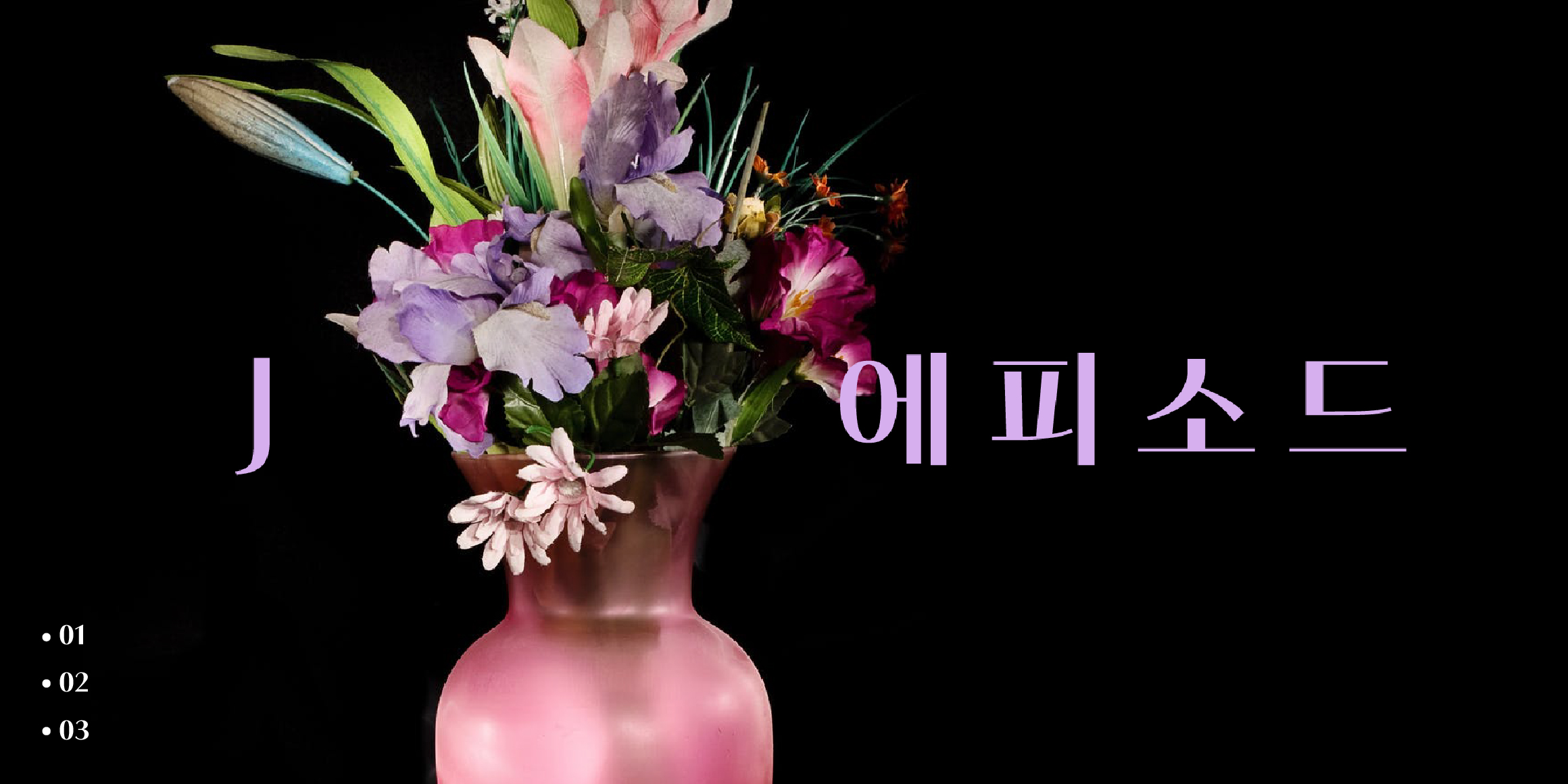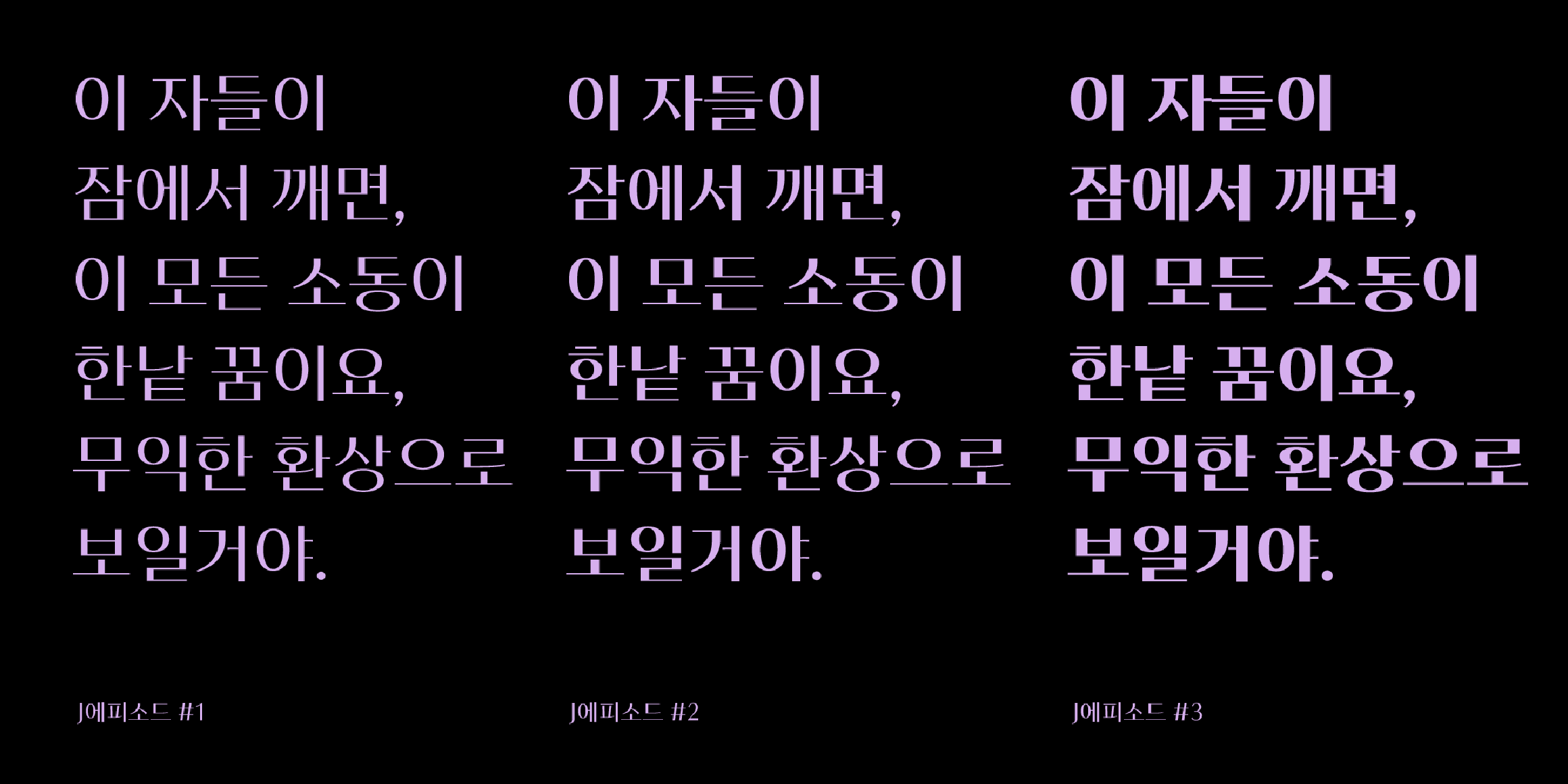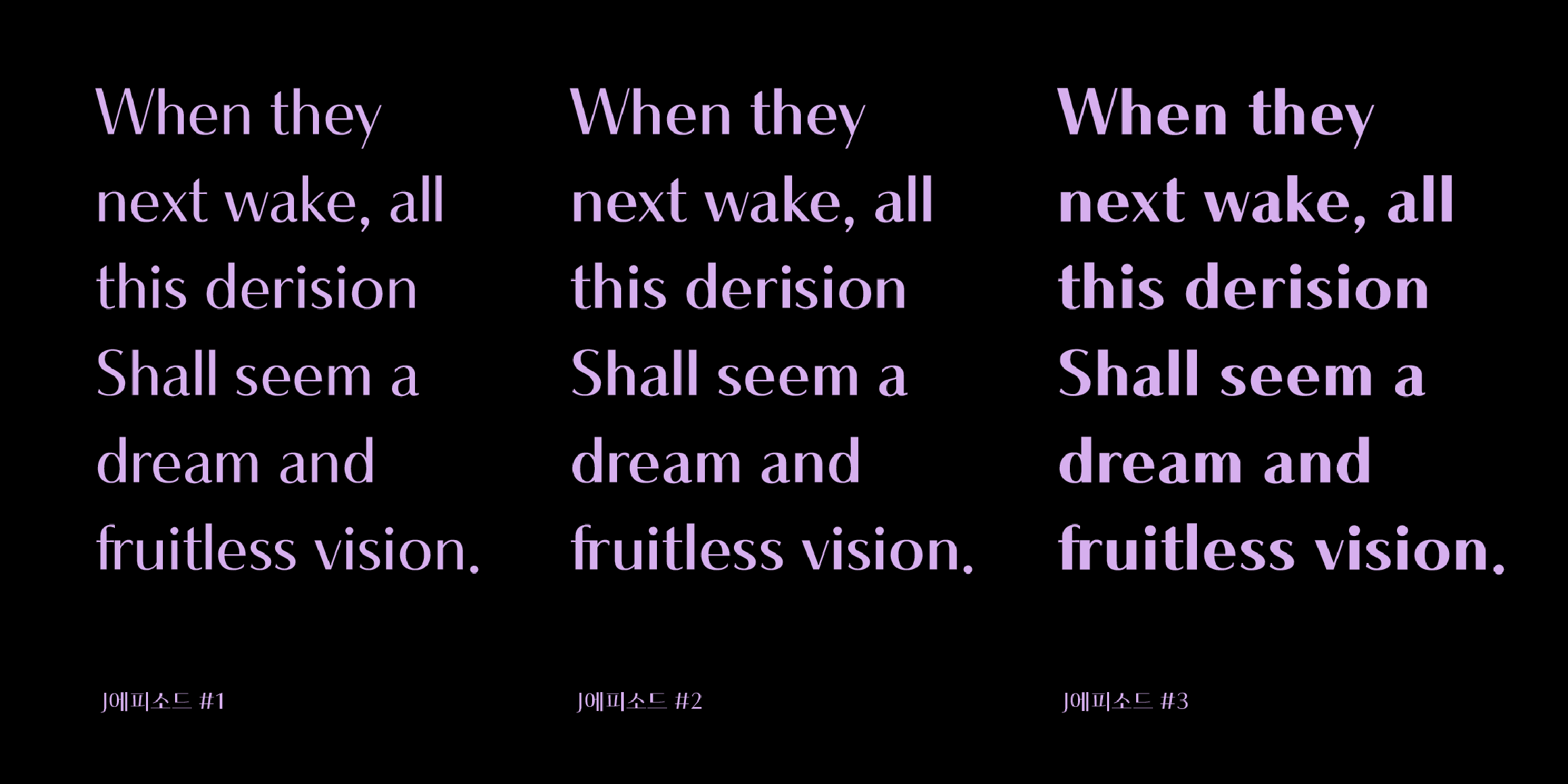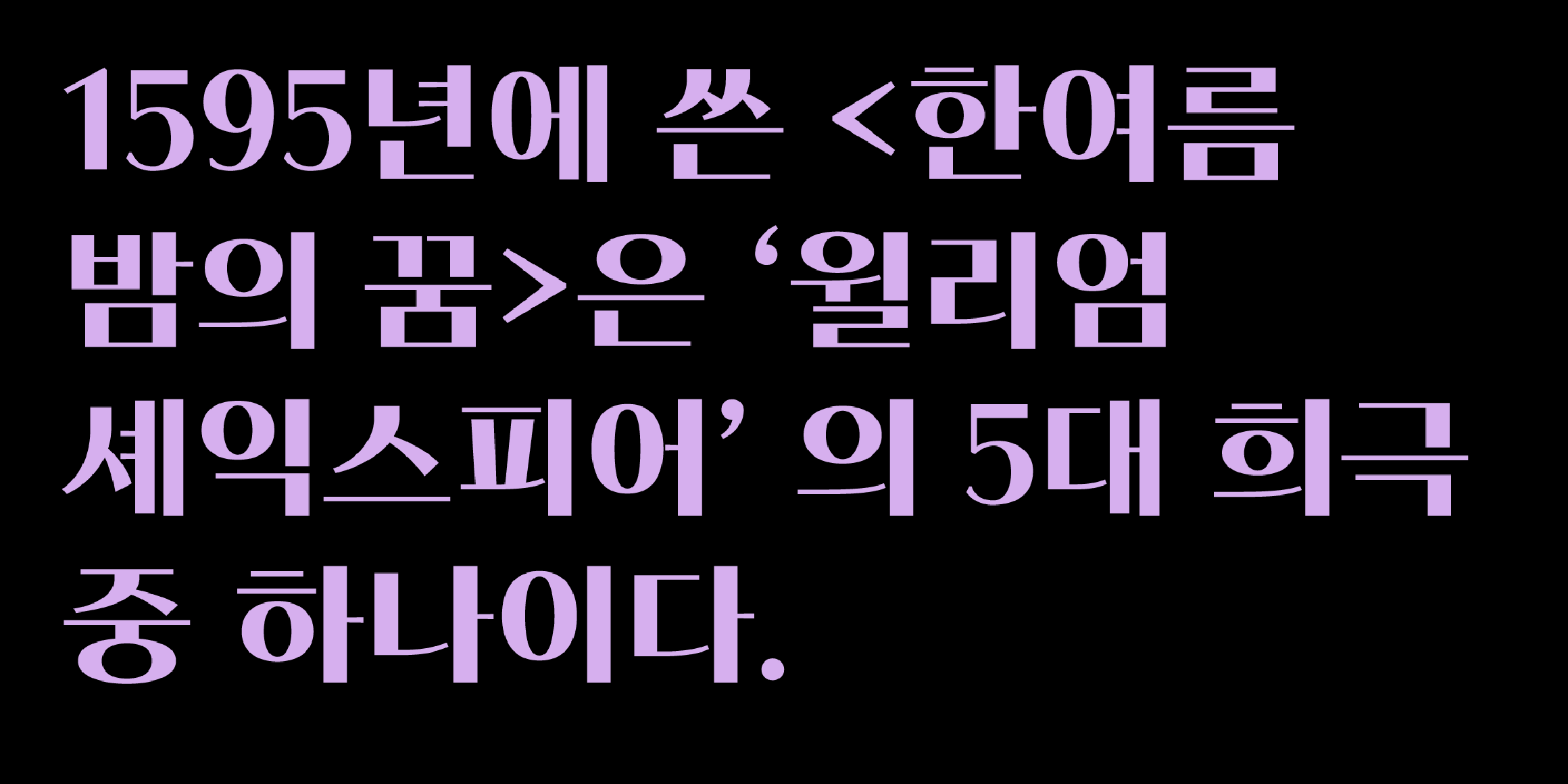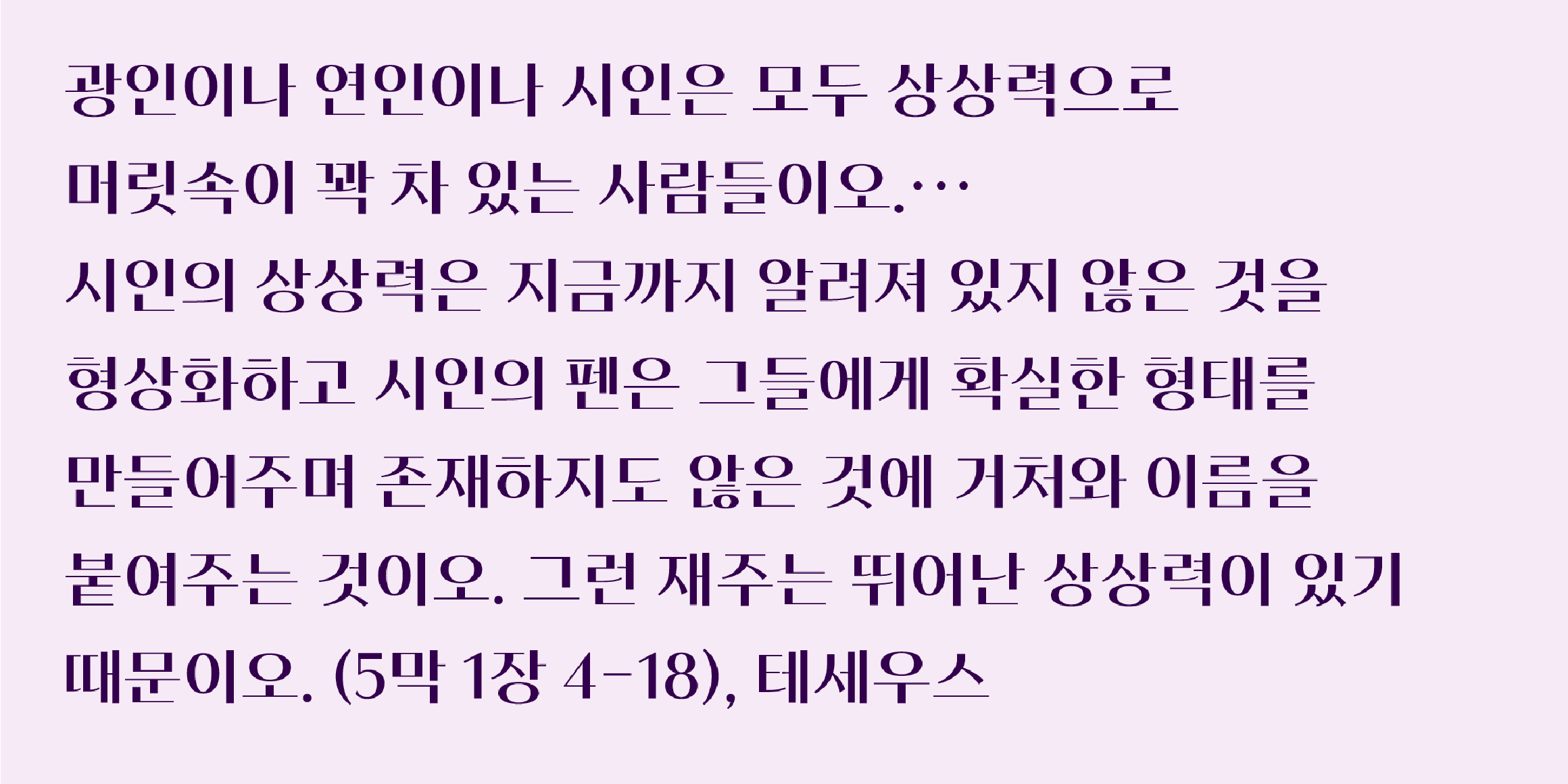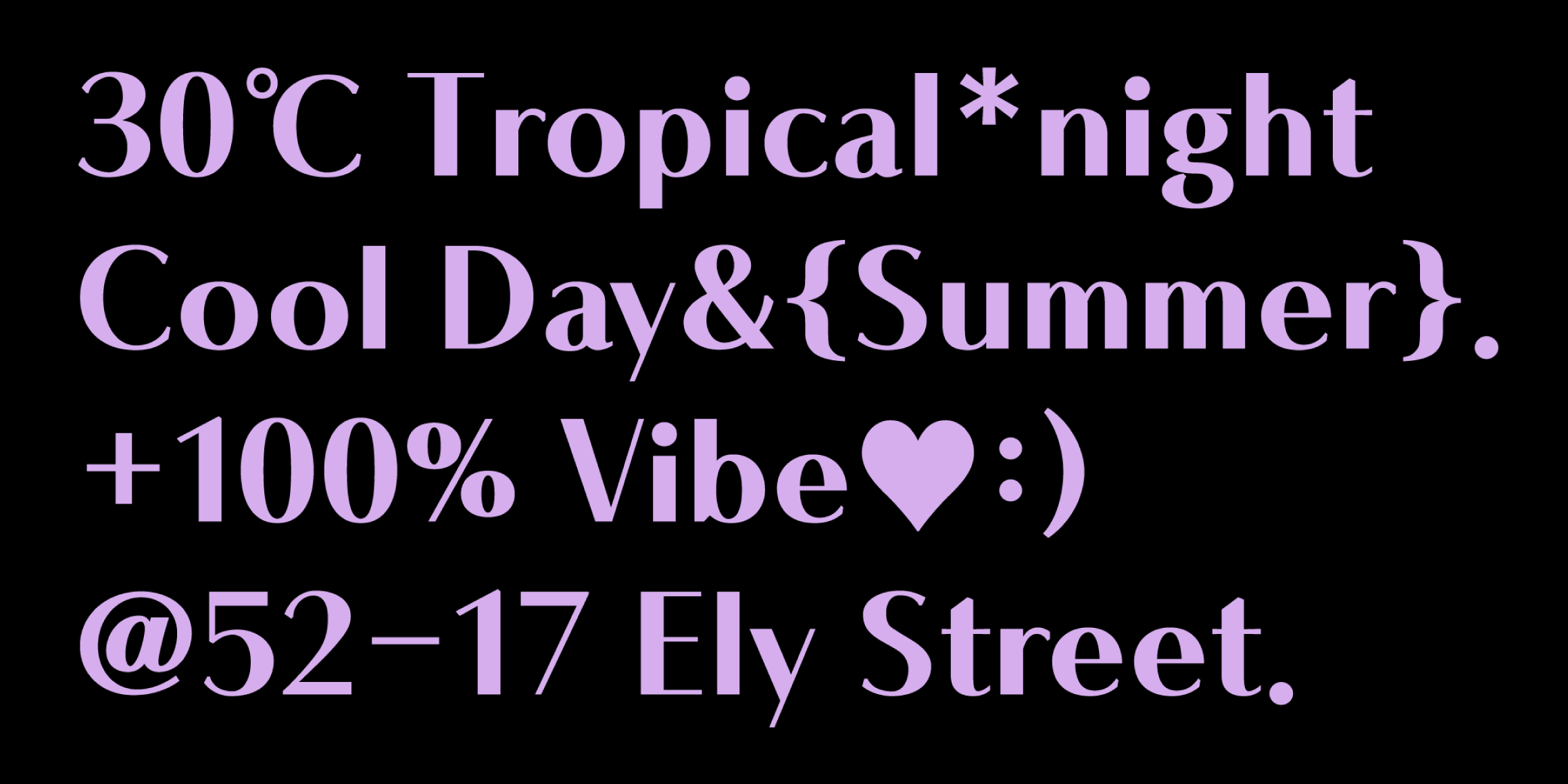
JEpisode family wants to show various designs and impressions with a graphic that shows the harmony of straight lines and curves in ‘stroke contrast’ and a full square frame. JEpisode which is the first one of Episode family follows the lineage of the graphic body, but tries to give a sophisticated impression by properly distributing the shape design and strokes of the grapheme and the curves and straight lines. In overall, the unique curve of grapheme emphasizes the rich and elegant feel of the letters. When the initial consonant, which was shown as a curve, is positioned as the final consonant, it is processed as a straight line to form a refined image.
Regarding the Latin design, it’s focused on blending the classical and modern sensibilities shown in the Humanist Sans style. In order to match the mood, the curved beauty was emphasized in B,C,D,G. Meantime, K,M,N,V are emphasized the feeling of straight lines and designed to harmonize curves and straight lines like Hangeul. ’J/Q’ captures such an atmosphere in the typeface.
- J에피소드 / JEpisode